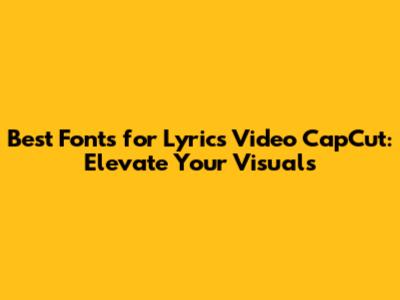
- Open CapCut and Start a New Project: First, launch the CapCut app on your phone. Then, start a new project by importing the video or images you want to use. Add your audio track.
- Add Text: Tap the “Text” option at the bottom of the screen. Then, tap “Add Text”. A text box will appear on your video. Type in your lyrics.
- Choose Your Font: Here’s where the magic happens! Select the text box you just created. You’ll find options like “Style,” “Font,” and “Animation” at the bottom. Tap “Font.” You’ll see a list of fonts available in CapCut. Scroll through the list and select the font you want to use. If you don't see the one you want, you can download more fonts. Just tap the “+” button to add fonts from your device.
- Customize Your Text: Play around with the style of your text. You can adjust the size, color, and spacing. Add shadows and outlines to make your text pop, especially against busy backgrounds. You can also experiment with different animations to make the lyrics move in sync with the music. CapCut offers so many options, so don’t be shy to explore!
- Position and Time: Drag the text box to the part of the screen where you want the lyrics to appear. You can also adjust the timing, making each line of lyrics appear at the correct moment in the song. To do this, simply drag the text box to the appropriate spot on the timeline.
- Repeat and Refine: Keep adding text, choosing fonts, and customizing your lyrics until you've completed your video. Remember to review the video and fine-tune your lyrics, ensuring everything looks and feels just right.
- Contrast is Key: Make sure the text color contrasts strongly with the background. This will make your lyrics easy to read. For example, a white font on a dark background or vice versa.
- Limit Font Variety: It's best to stick to just one or two fonts in a video. Using too many can make the video look messy and unfocused. Choose a primary font for most of the lyrics and a secondary font for emphasis or titles.
- Consider the Music: Pick fonts that match the vibe of the song. A bold, modern font might be great for a pop song, while an elegant script could suit a ballad.
- Test and Preview: Always preview your video to check how the font looks on different backgrounds and animations. Adjust your choices as needed.
- Check Readability: Make sure your font is easy to read, especially on a mobile screen. Avoid overly decorative fonts if readability is an issue.
Hey guys! Ever wondered how to make your CapCut lyrics videos pop? Well, one of the biggest keys to success is choosing the right font. The font you pick can completely change the vibe of your video, making it look professional, fun, or anything in between. In this article, we're diving deep into the best fonts for lyrics video CapCut to help you level up your video game. We'll explore various styles, from clean and modern to bold and playful, ensuring you find the perfect match for your music and aesthetic. So, buckle up, because we're about to make your lyric videos unforgettable! Let's get started with this CapCut font journey!
Why Font Choice Matters in CapCut Lyrics Videos
Alright, so you might be thinking, "Why is font selection such a big deal, anyway?" Well, think about it like this: your font is the voice of your lyrics. It’s how you communicate the song's message visually. The right font choice can grab viewers' attention, keep them engaged, and enhance their emotional connection to the music. On the flip side, a poorly chosen font can make your video look amateurish, hard to read, or even clash with the song's mood. It's really that important, guys!
Choosing the best fonts for lyrics video CapCut involves a lot more than just picking something that looks cool. You need to consider readability, especially if your viewers are watching on a small screen like a phone. You also want a font that complements the song's genre and the overall aesthetic you're aiming for. A heavy metal track won't exactly jive with a delicate, handwritten font, right? And, you certainly don't want a font that's too similar to another. The balance is key.
Another thing to think about is the accessibility of your video. Make sure your font has enough contrast with the background, so that viewers with visual impairments can also enjoy your creation. Using bold or outlined fonts can help here. In this era of short-form video content, where people scroll through countless videos every day, you need to make sure that yours instantly catches their eye. A well-chosen font is a super effective way to do just that, creating that initial visual appeal that can make all the difference.
The Impact of Font Style
Different font styles evoke different feelings. A serif font, with its little decorative strokes, might lend a classic, elegant vibe, perfect for ballads or more sophisticated tracks. Sans-serif fonts, on the other hand, are clean and modern, offering excellent readability and suiting a wide range of genres. Script fonts, which mimic handwriting, can add a personal, intimate touch – great for romantic or acoustic songs. But hey, it can be a double-edged sword, it can be hard to read! Display fonts are more unique and can make a bold statement, but they must be used carefully to avoid overwhelming the viewer.